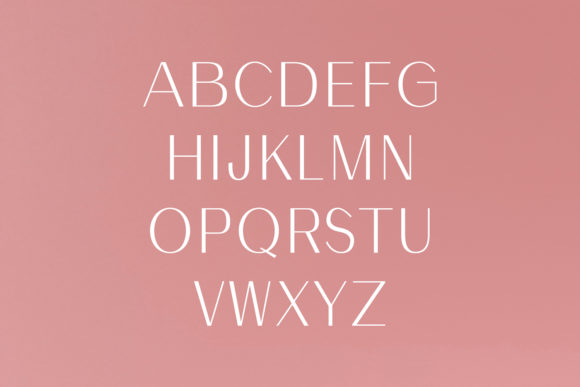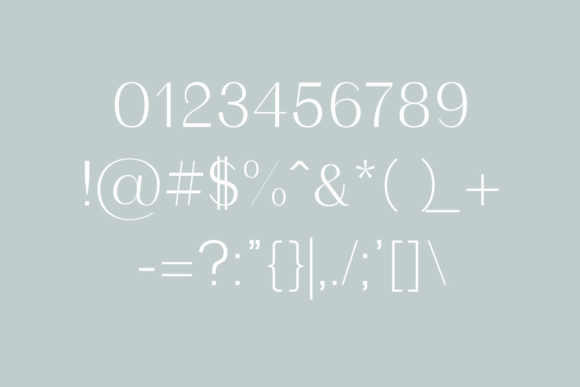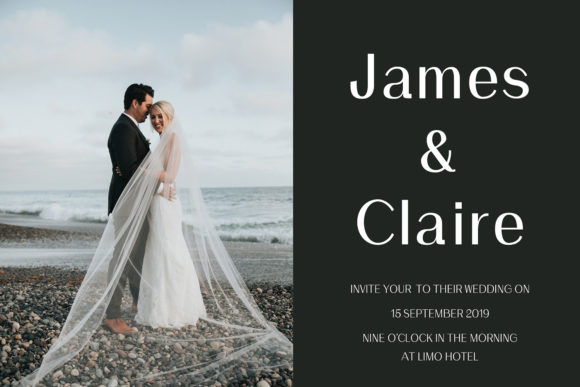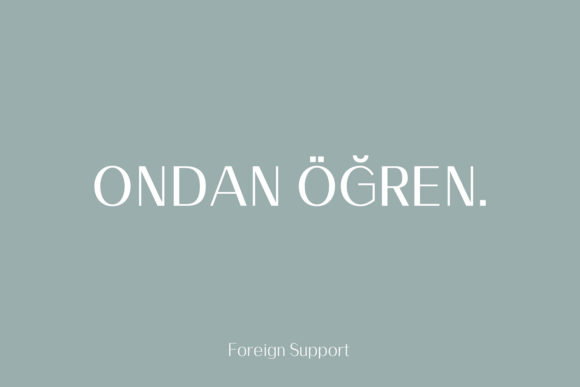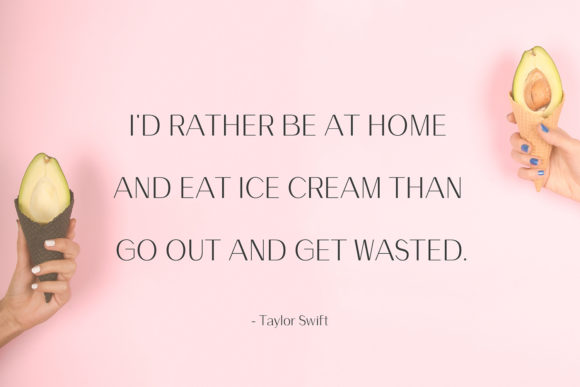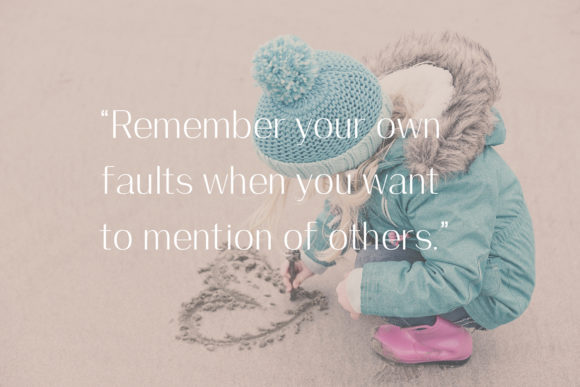
Introduction to Malak Font
Malak is a font family that is perfect for personalizing your next crafting project.
Get inspired by its contemporary charm .
Key Features of Malak Font
Why Choose Malak Font?
Malak Font offers exceptional quality and versatility, making it a valuable addition to your design toolkit. Whether you’re creating for personal projects or commercial use, Malak Font delivers professional results.